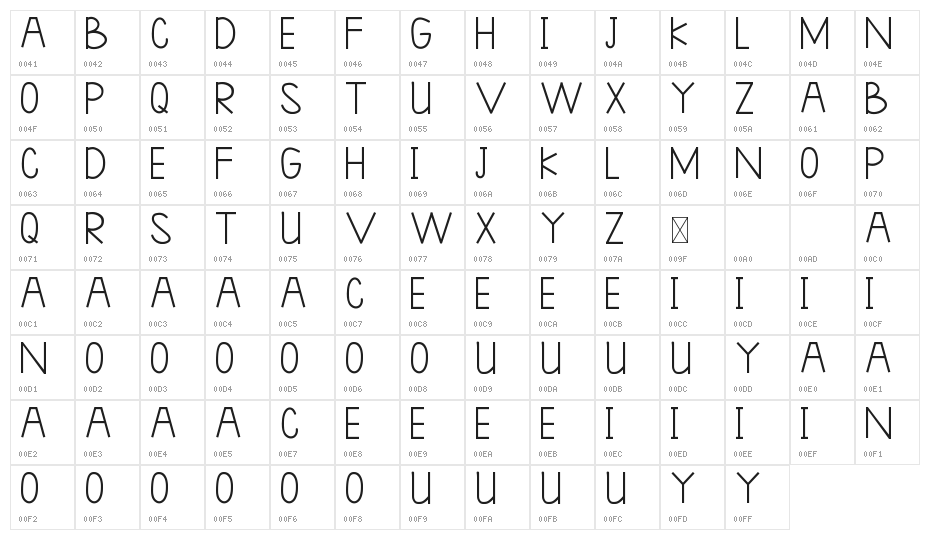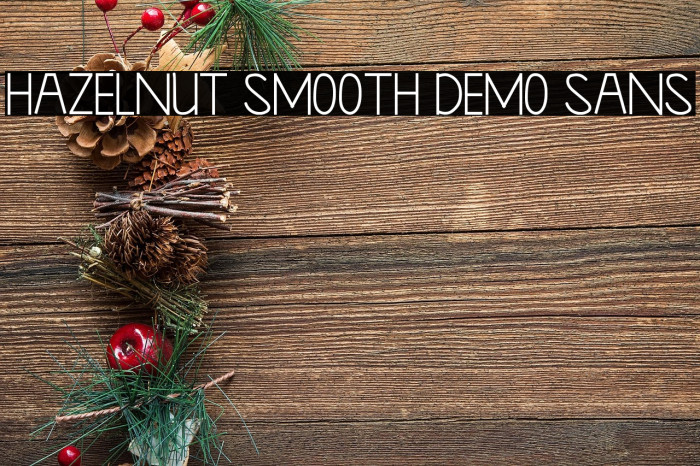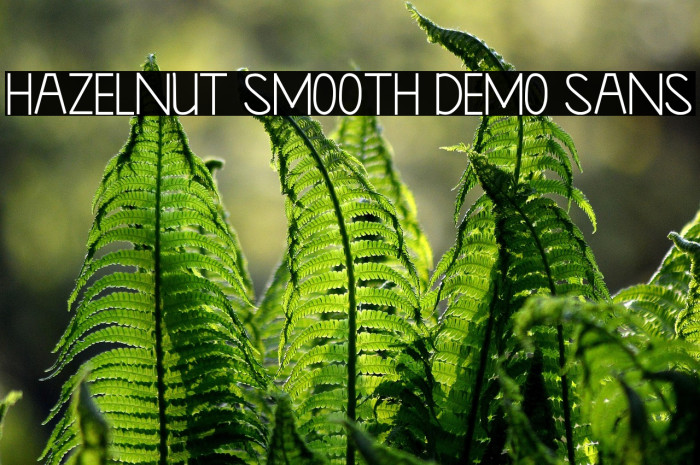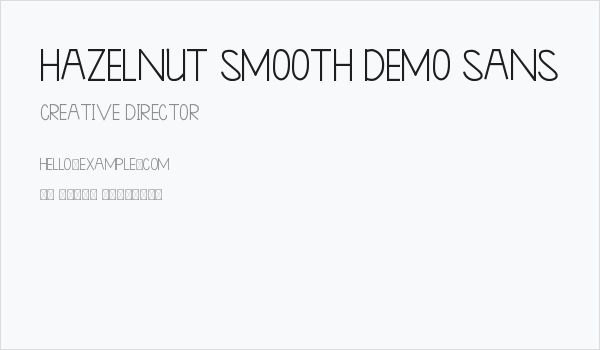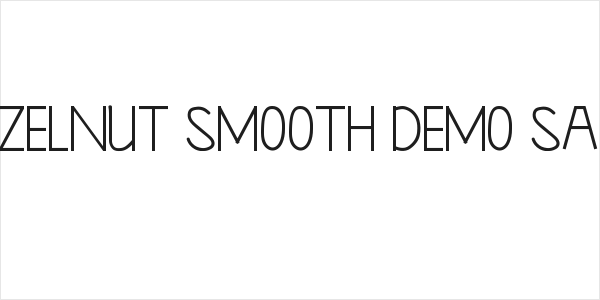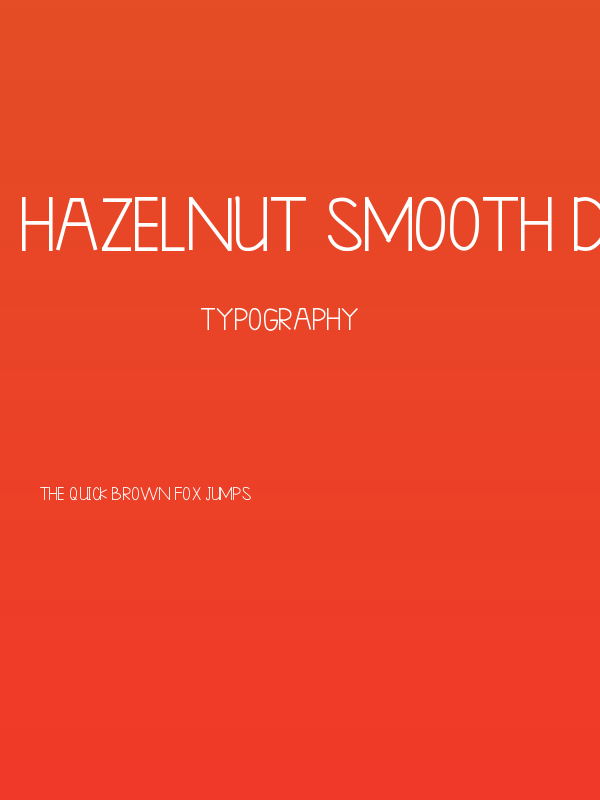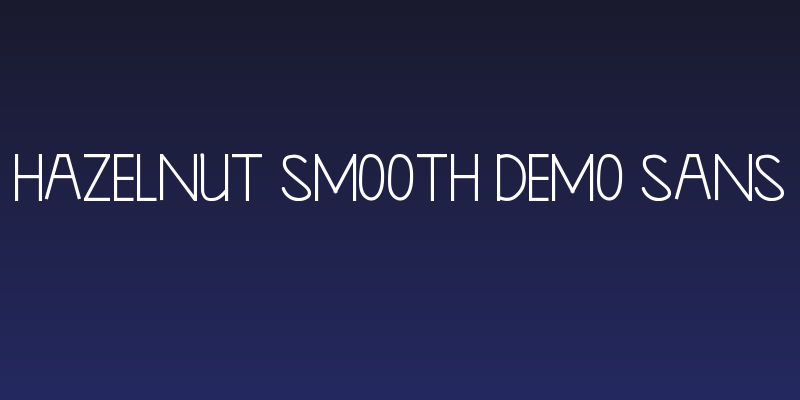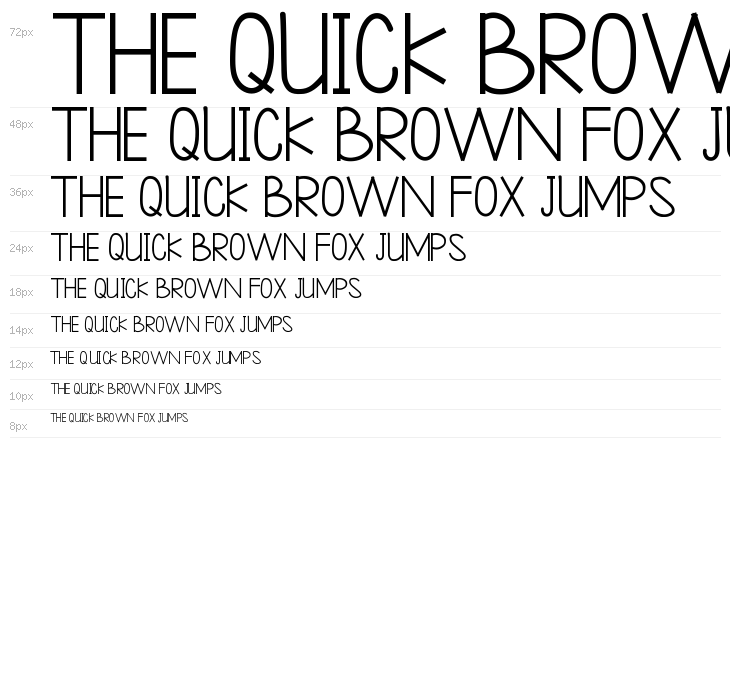
Hazelnut Smooth Demo Sans Font
Hazelnut Smooth Demo Sans Description
This font features a clean and modern sans-serif design with smooth, rounded edges that give it a friendly and approachable appearance. The characters are evenly spaced, providing a balanced and harmonious look. The uppercase letters are tall and slightly narrow, while the lowercase letters maintain a consistent height, enhancing readability. The overall style is minimalistic, making it versatile for various design projects. The font's simplicity and clarity make it suitable for both digital and print media, ensuring legibility across different sizes and resolutions.
| Proposed Projects | Ideal for branding, web design, editorial layouts, and packaging design. |